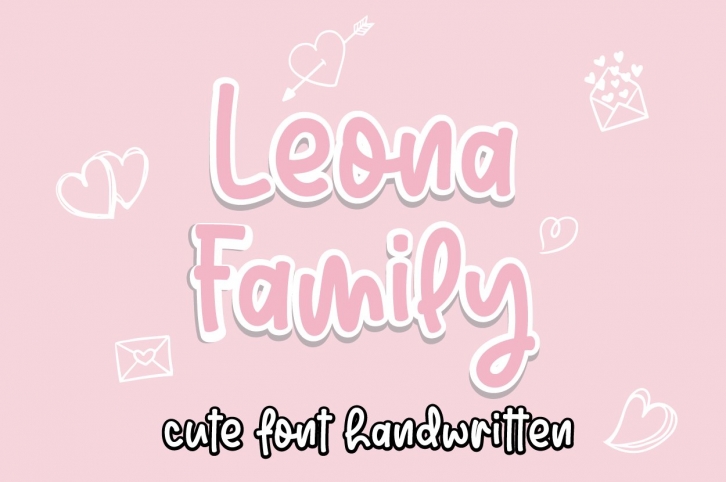
Leona Family is a trendy and unique font with an authentic style. It was designed by letter art studio and it's a great choice for creative people who need such a font. It was released on March 22, 2022 and the file size is 8.51 MB. Leona Family will add an organic vibe to any design idea!